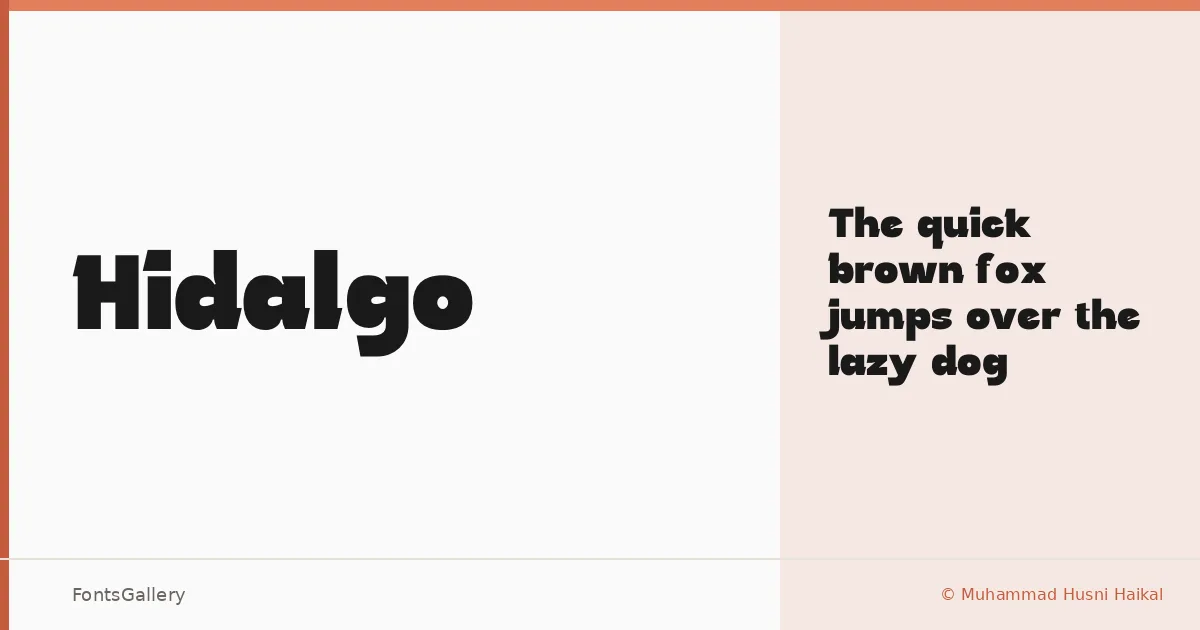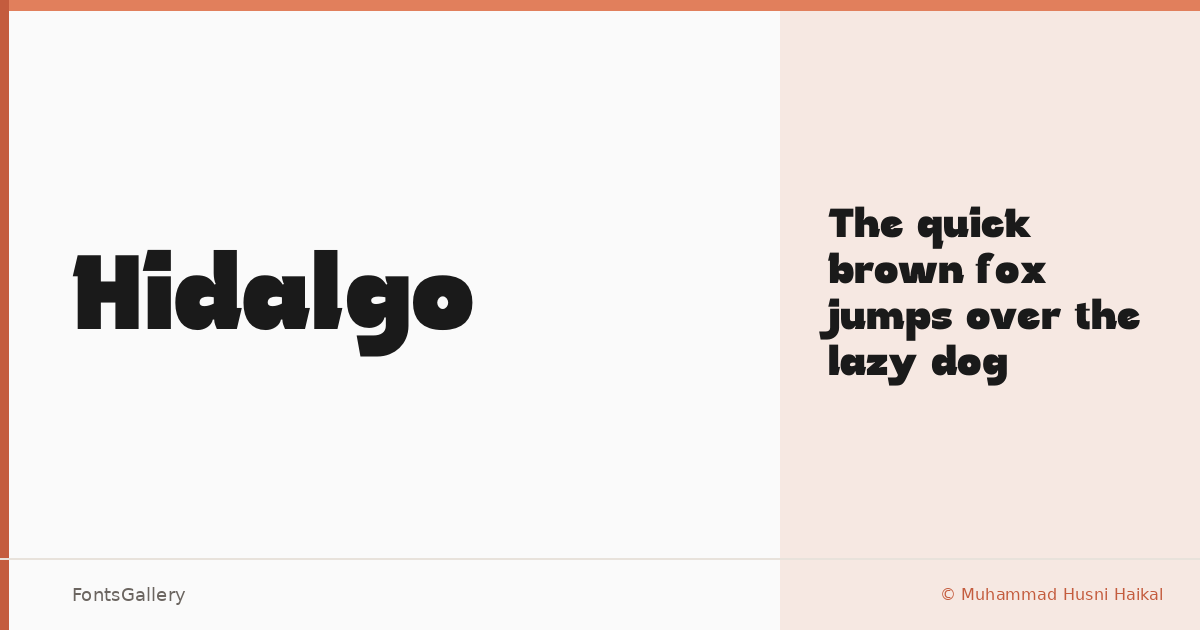
About Hidalgo Font
There is a confidence in the weight of this single cut — a bold, upright sans serif that carries itself without apology. Hidalgo comes from designer Muhammad Husni Haikal and is available as a Regular in OTF format, built for moments where presence matters more than subtlety.
The forms sit squarely in modern sans serif territory, with strokes and proportions that read as professional and direct rather than decorative. At large sizes the geometry asserts itself cleanly, making it the kind of face that headlines and logotypes call for. With only the single Regular weight in the family, the design stakes everything on that one cut — and the cut is confident enough to hold up.
It belongs at the top of a magazine spread, across a poster, or anchoring a brand mark or logo where a bold, modern tone sets the right register. For contrast in a layout, it has been paired alongside AQUA, Ballmain, 321 Impact, Aranea, and Batoshi — each offering a different texture to play against its solidity.